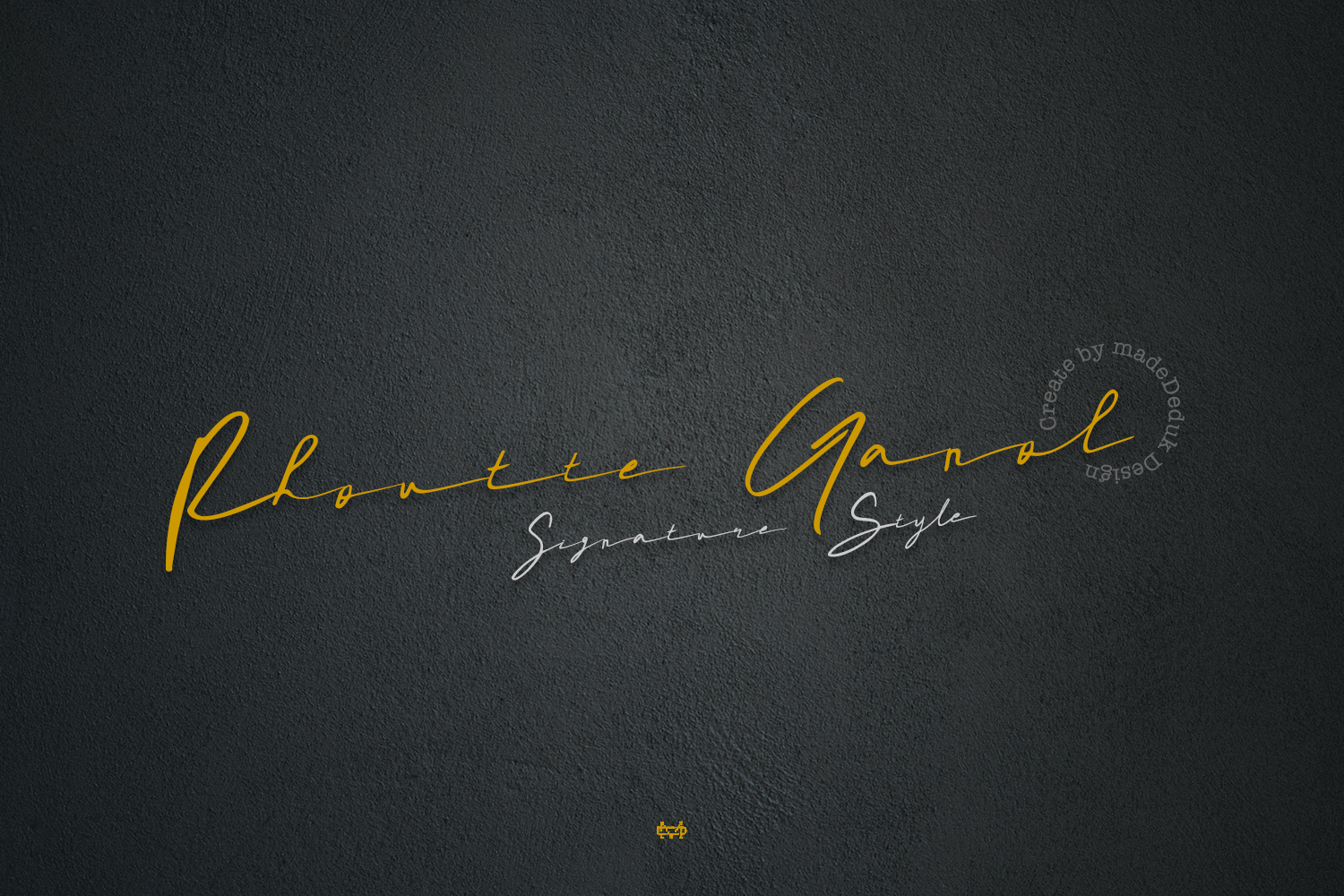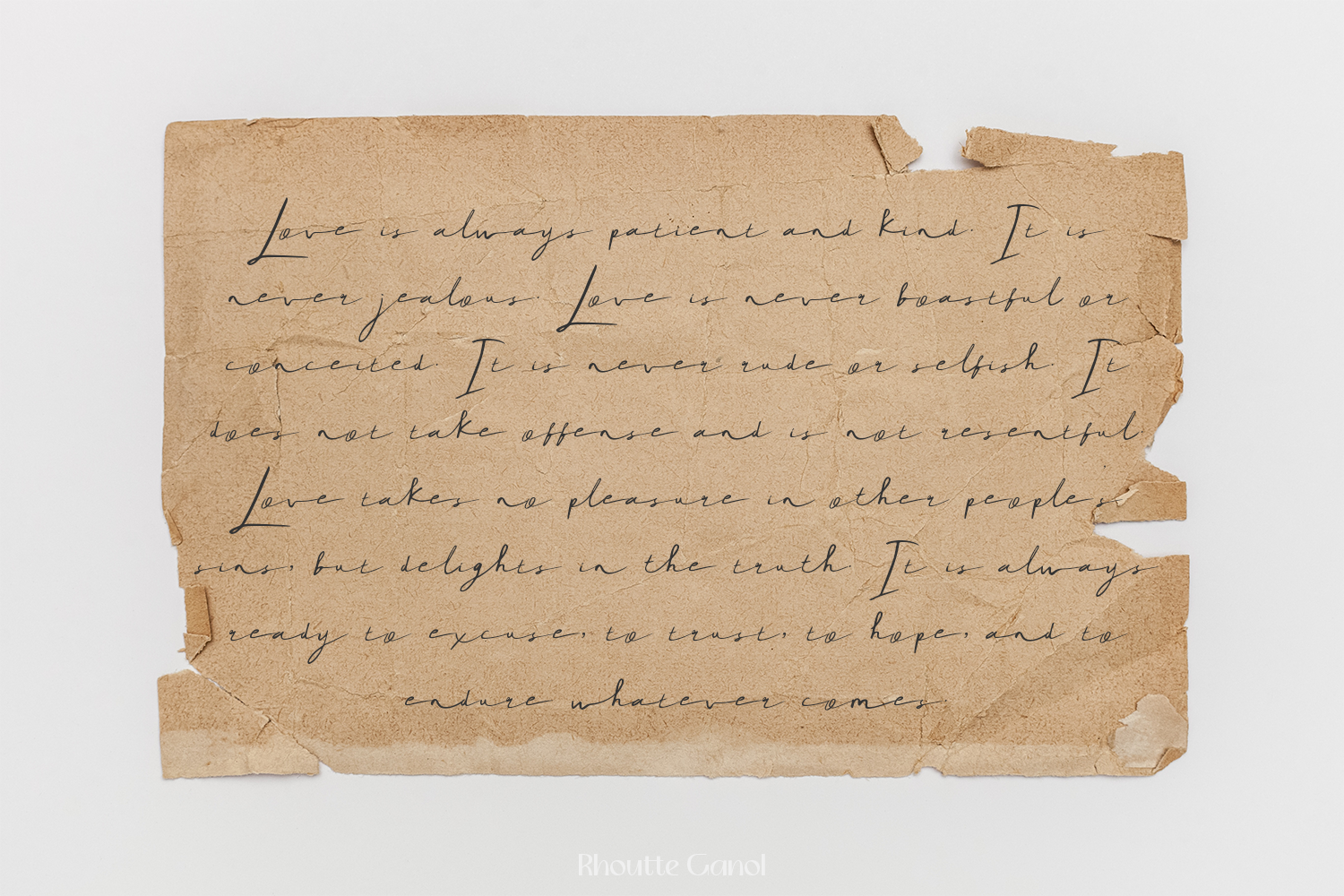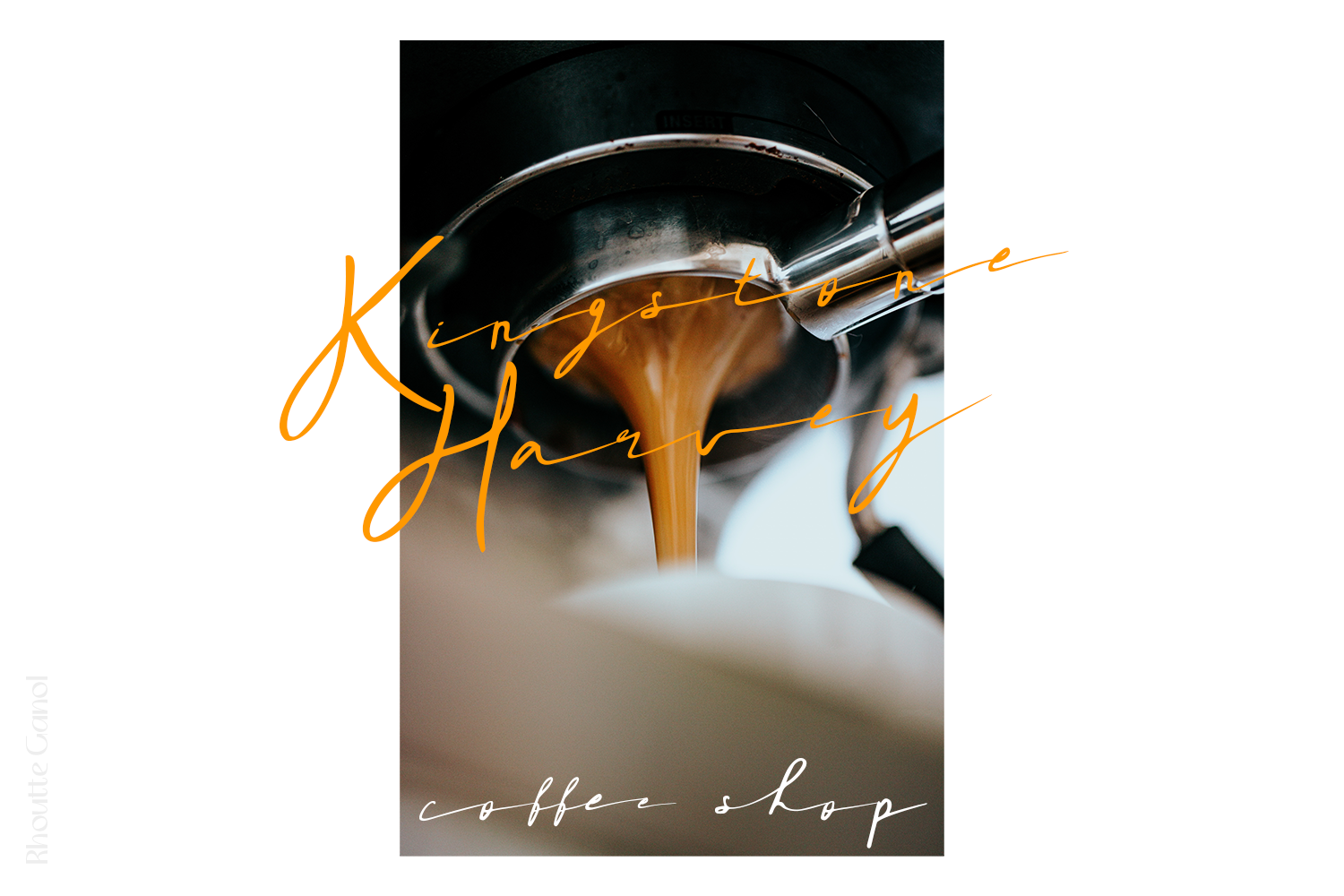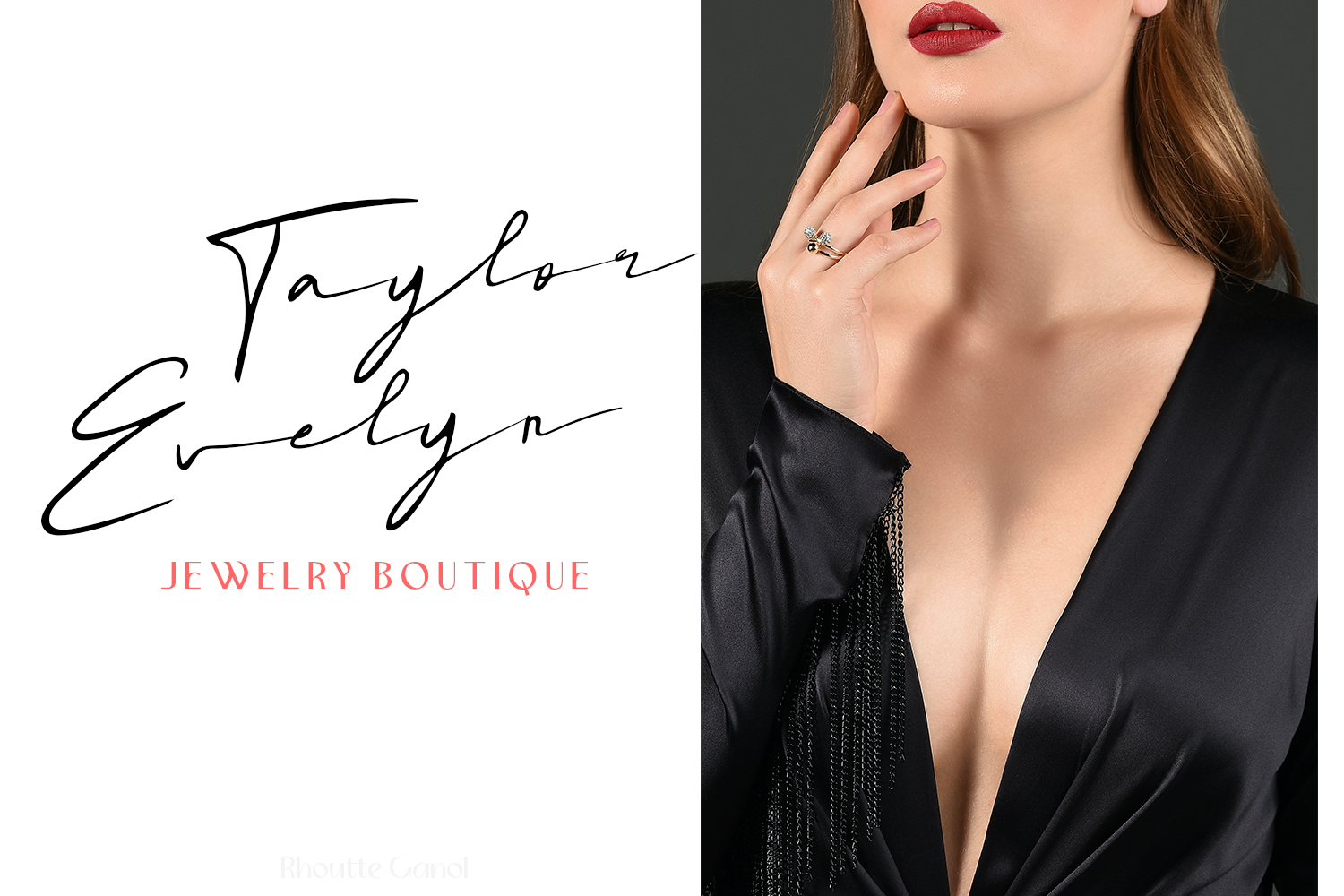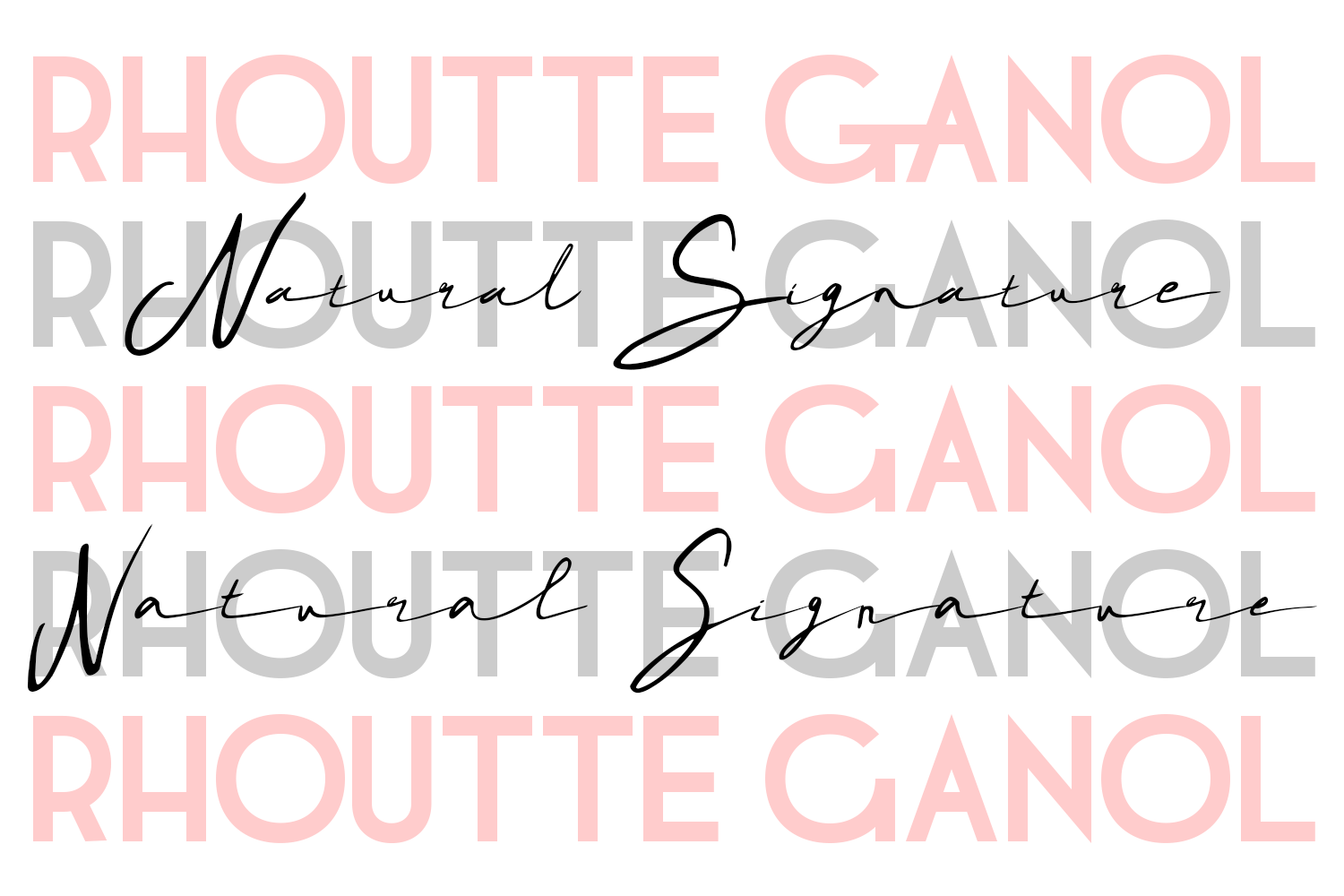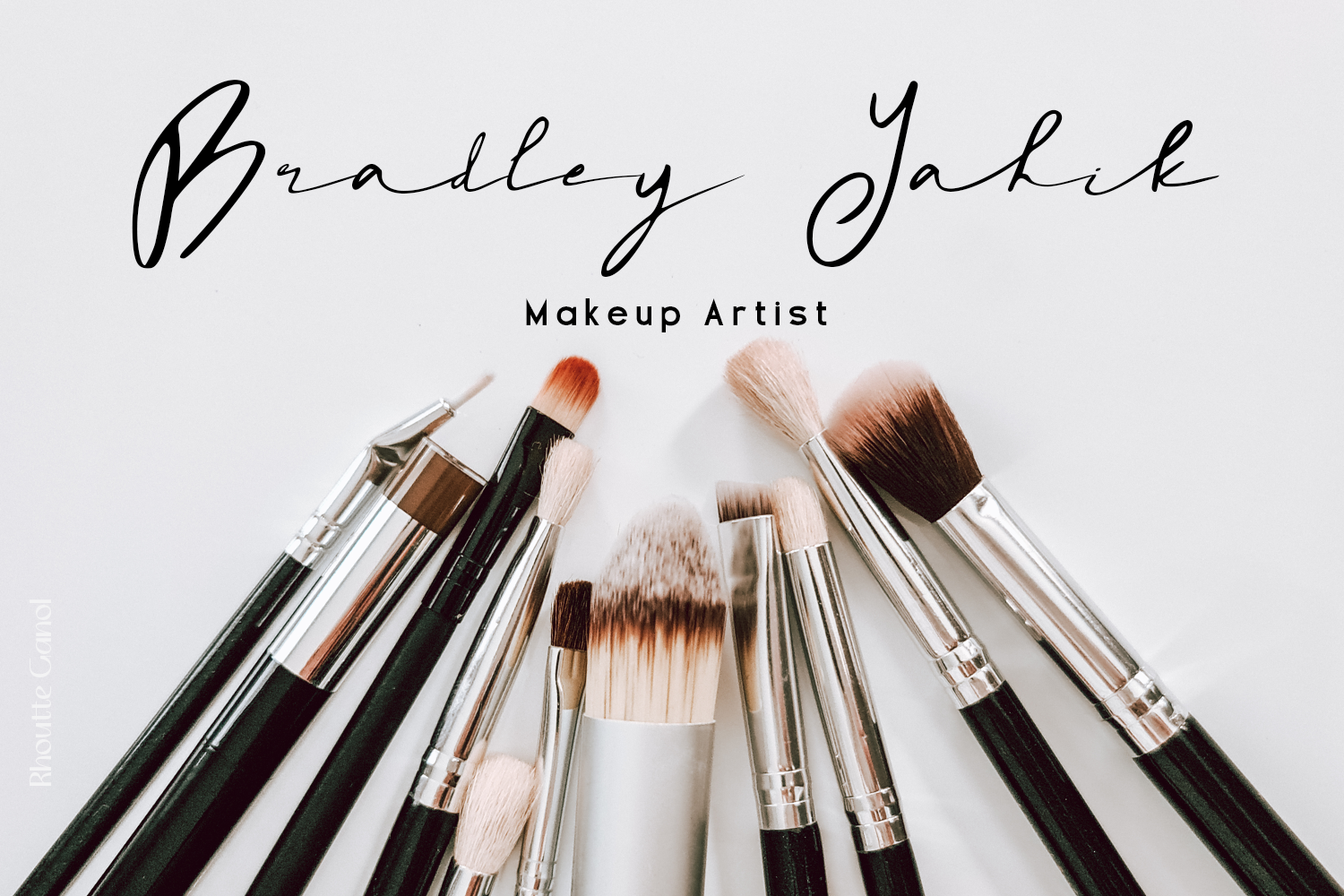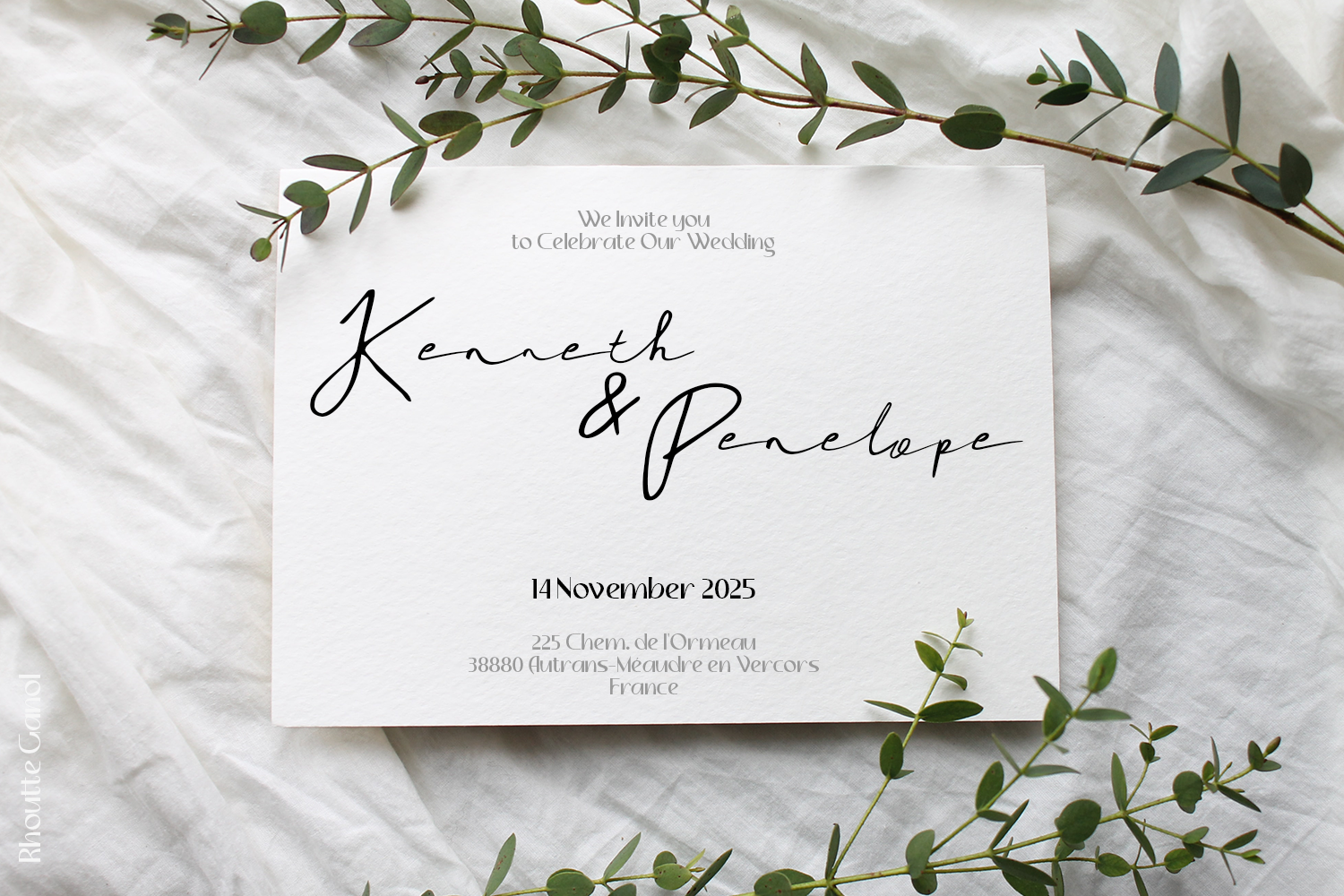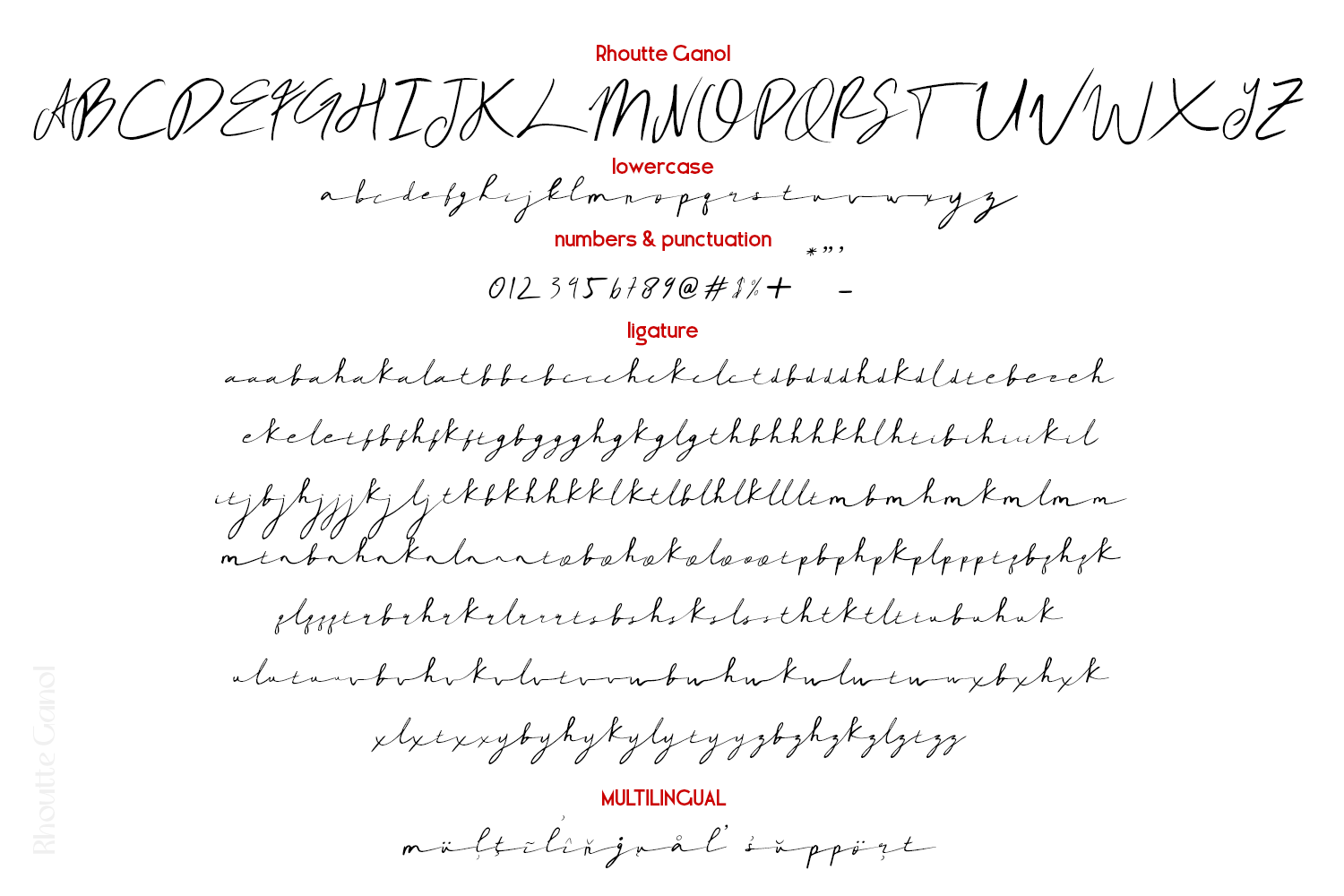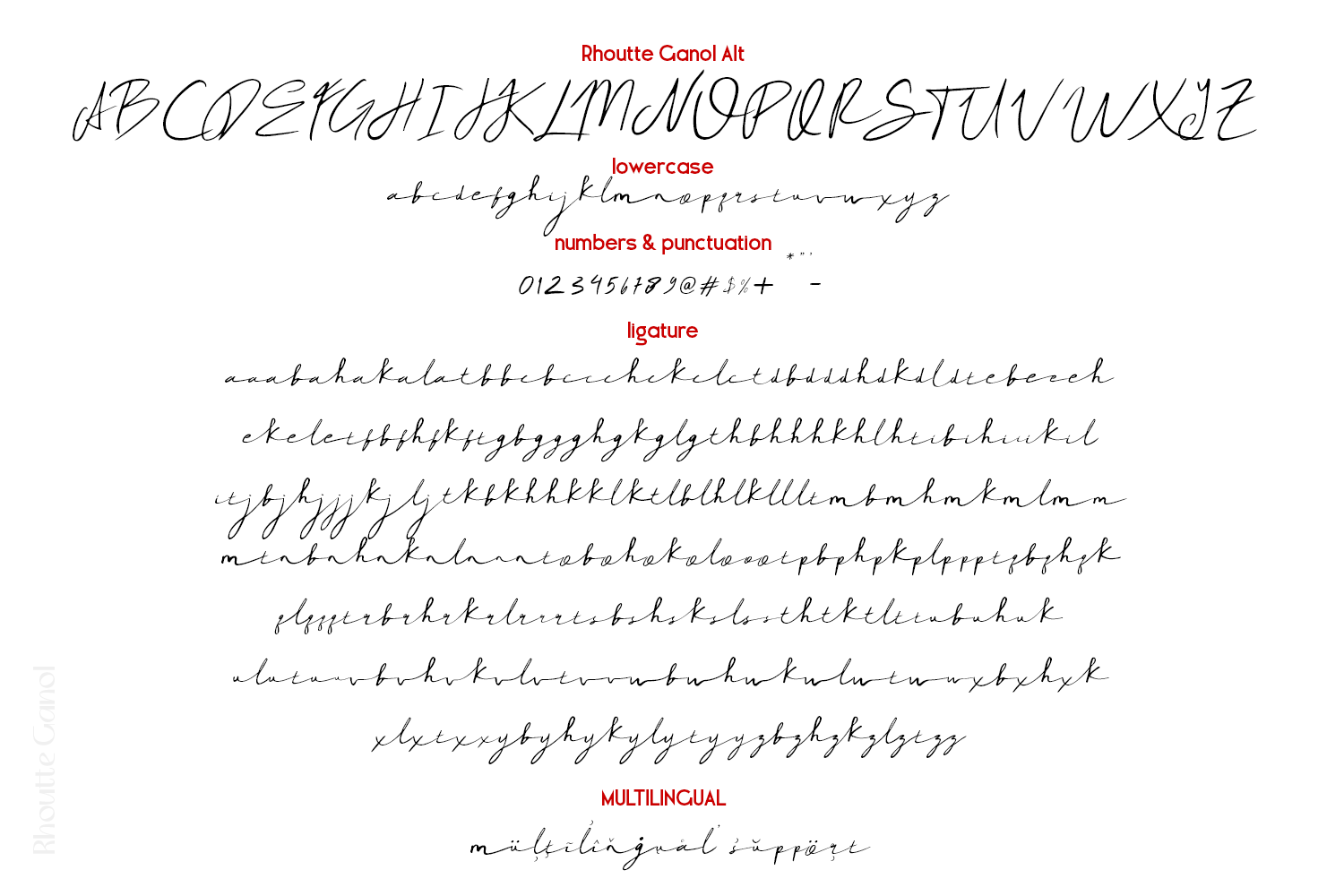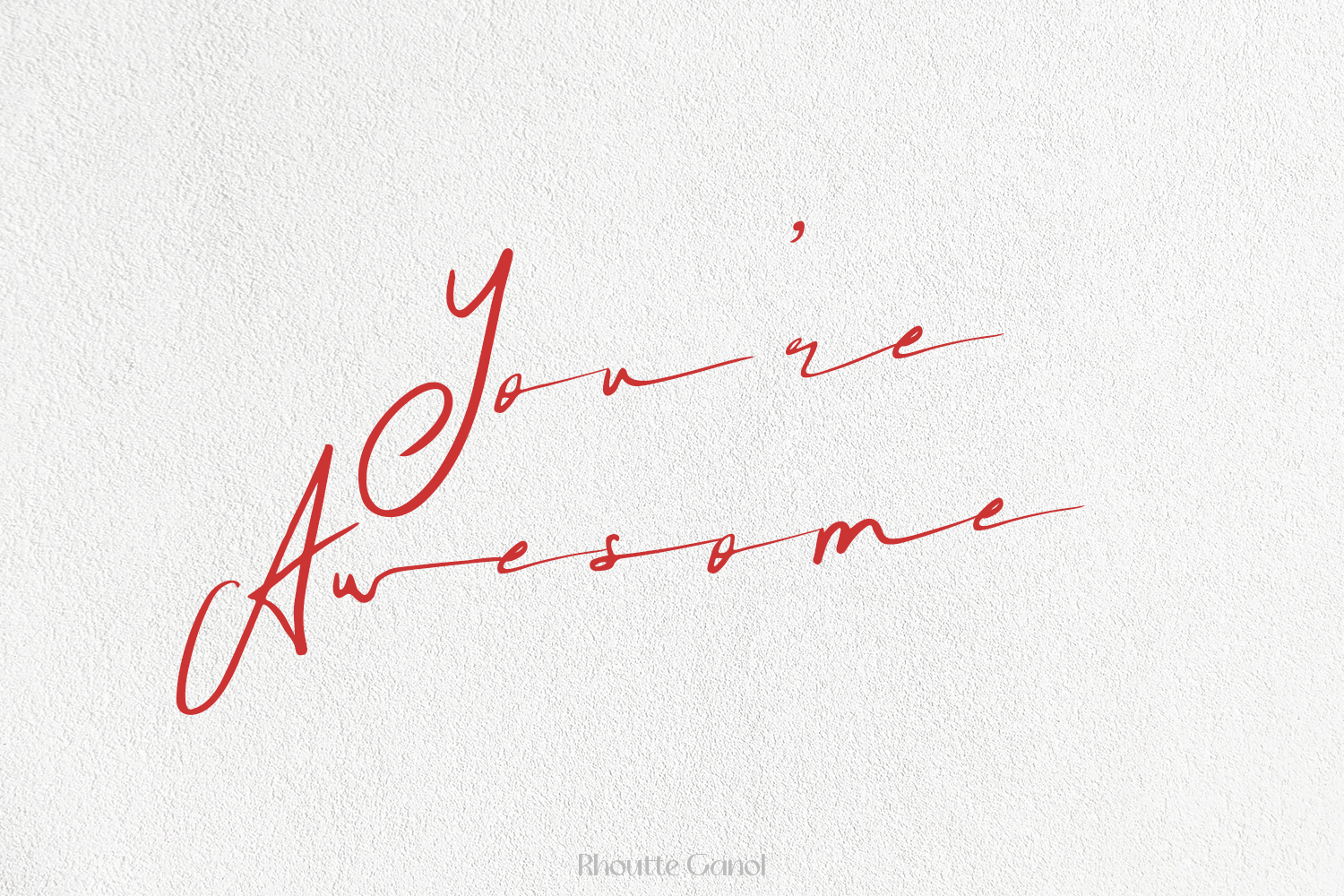
Really excited to introduce Rhoutte Ganol is a realistic signature to give a incredible impression for all your project design. Rhoutte Ganol come with two alternative and more than 149 ligatures in each font to make everything look realistic handmade signature.